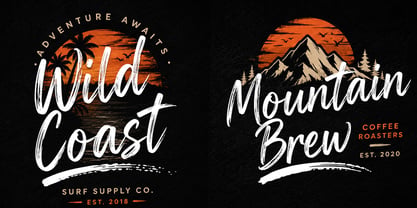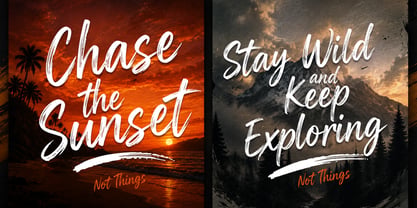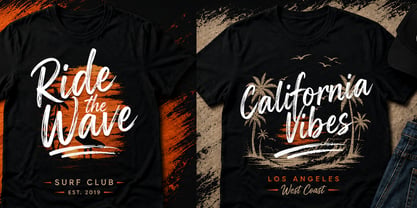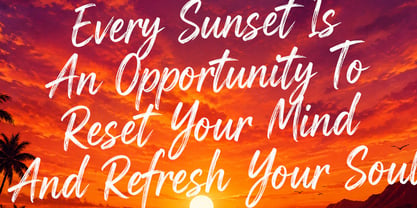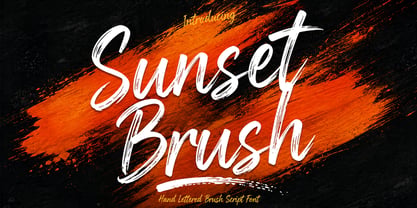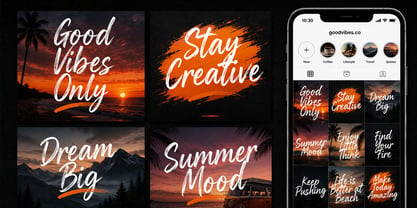
Sunset Brush
por Cocodesign
La familia tipográfica Sunset Brush fue diseñada por Muhammad Zaini y publicada por Cocodesign. Sunset Brush contiene 2 estilos y opciones de paquete familiar. Más información sobre esta familia
Sunset Brush is a bold hand-lettered brush script font designed to convey natural energy, expressive movement, and an authentic handcrafted feel. Inspired by genuine brush strokes, this font showcases dynamic textures, smooth curves, and flowing letterforms, ensuring a strong visual impact across various creative projects. With its organic brush details and stylish script appearance, Sunset Brush is ideal for branding, logo design, packaging, social media graphics, advertising campaigns, posters, apparel, invitations, product labels, book covers, photography overlays, and modern marketing materials. The natural brush texture adds character and personality while ensuring excellent readability. Designed to excel in both large headlines and eye-catching display text, Sunset Brush infuses a modern, artistic, and energetic touch into any design. Whether you're crafting bold branding concepts, creative merchandise, promotional materials, or digital content, this font provides a distinctive handcrafted aesthetic that effortlessly stands out.
Diseñadores: Muhammad Zaini
Fundición: Cocodesign